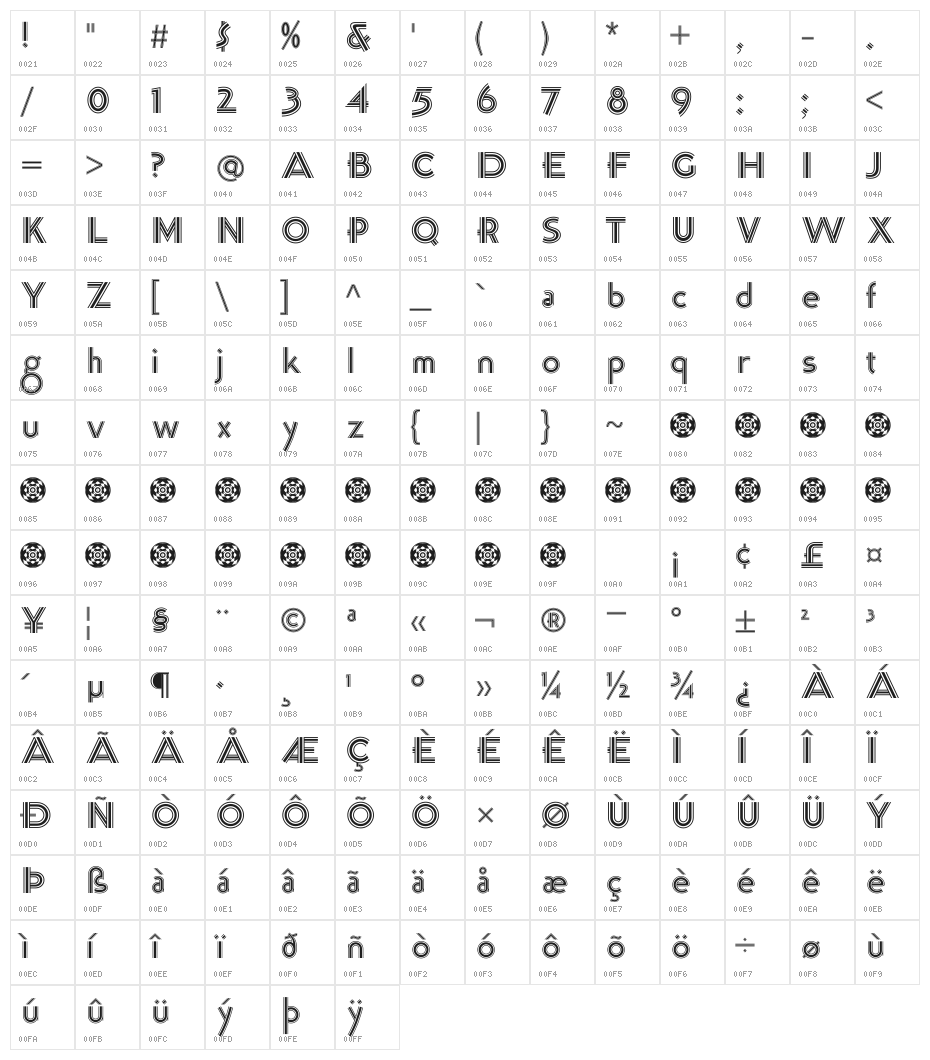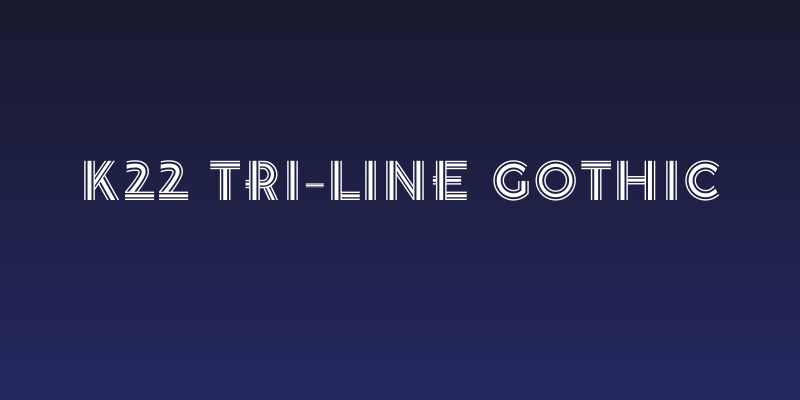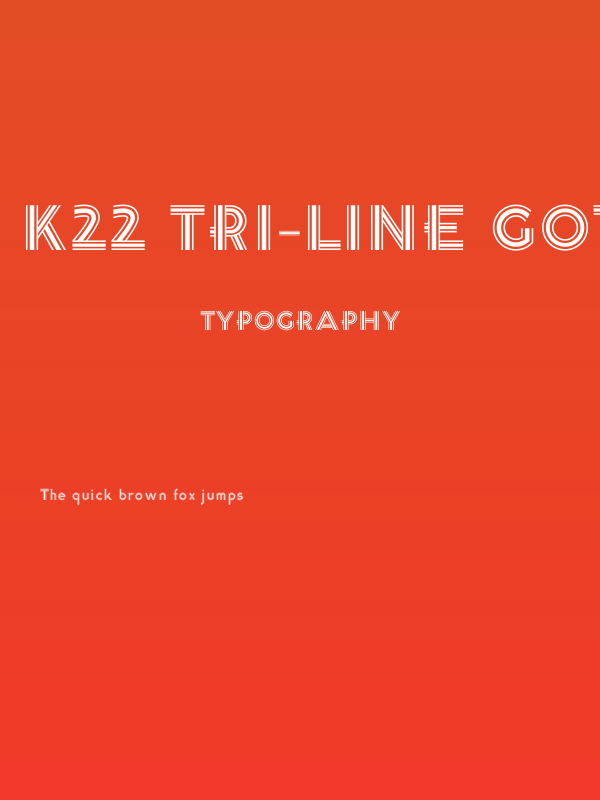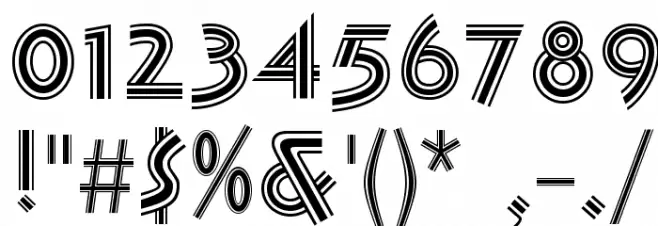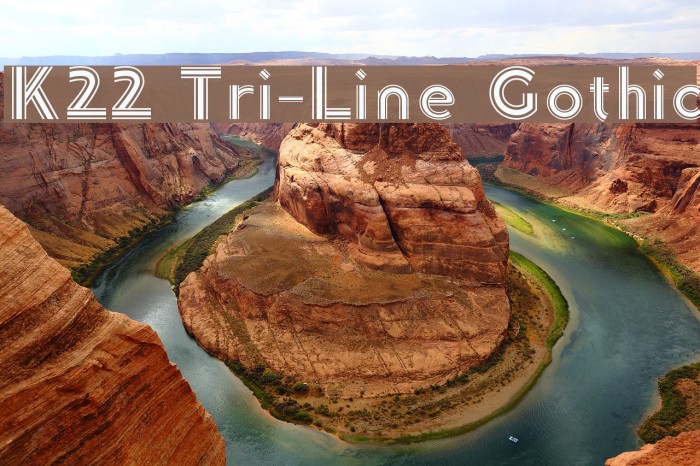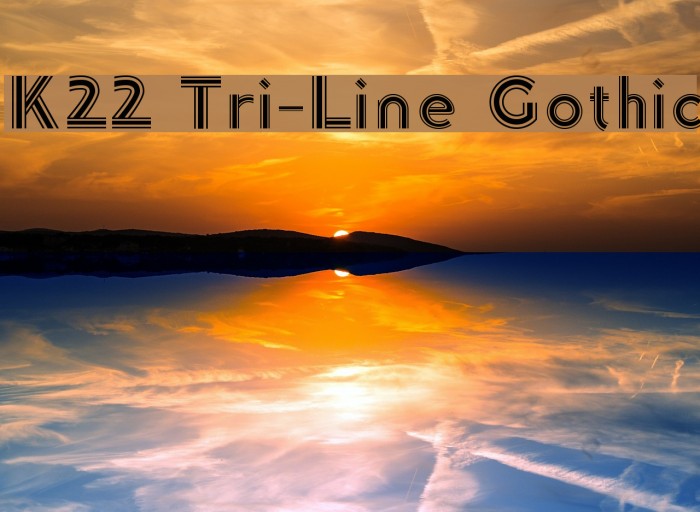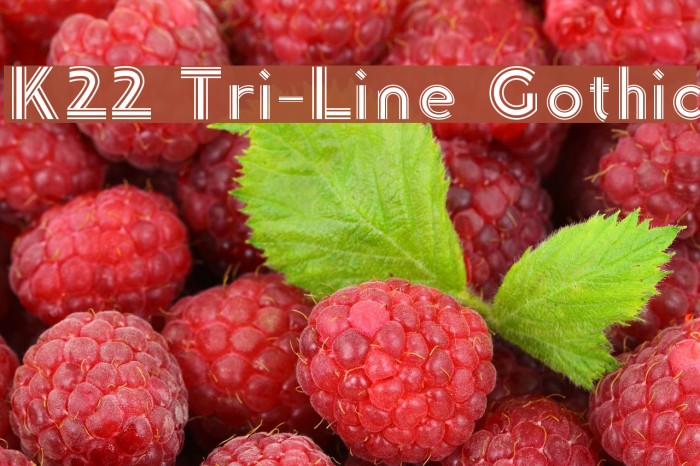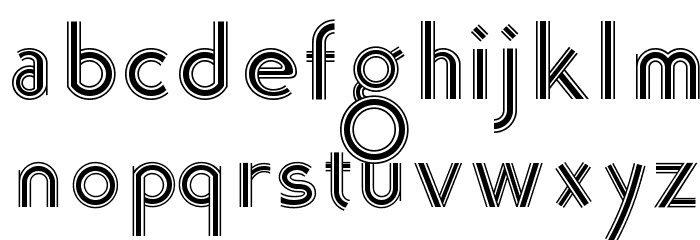
K22 Tri-Line Gothic Font
K22 Tri-Line Gothic Description
This font features a unique tri-line design, giving each character a distinct and modern appearance. The uppercase and lowercase letters are crafted with three parallel lines, creating a sense of depth and dimension. The geometric structure is consistent throughout, providing a cohesive look. The numerals and special characters follow the same tri-line pattern, ensuring uniformity across all glyphs. This font's style is both decorative and functional, making it suitable for various creative applications.
| Proposed Projects | Ideal for branding, posters, and headlines where a bold and modern aesthetic is desired. |